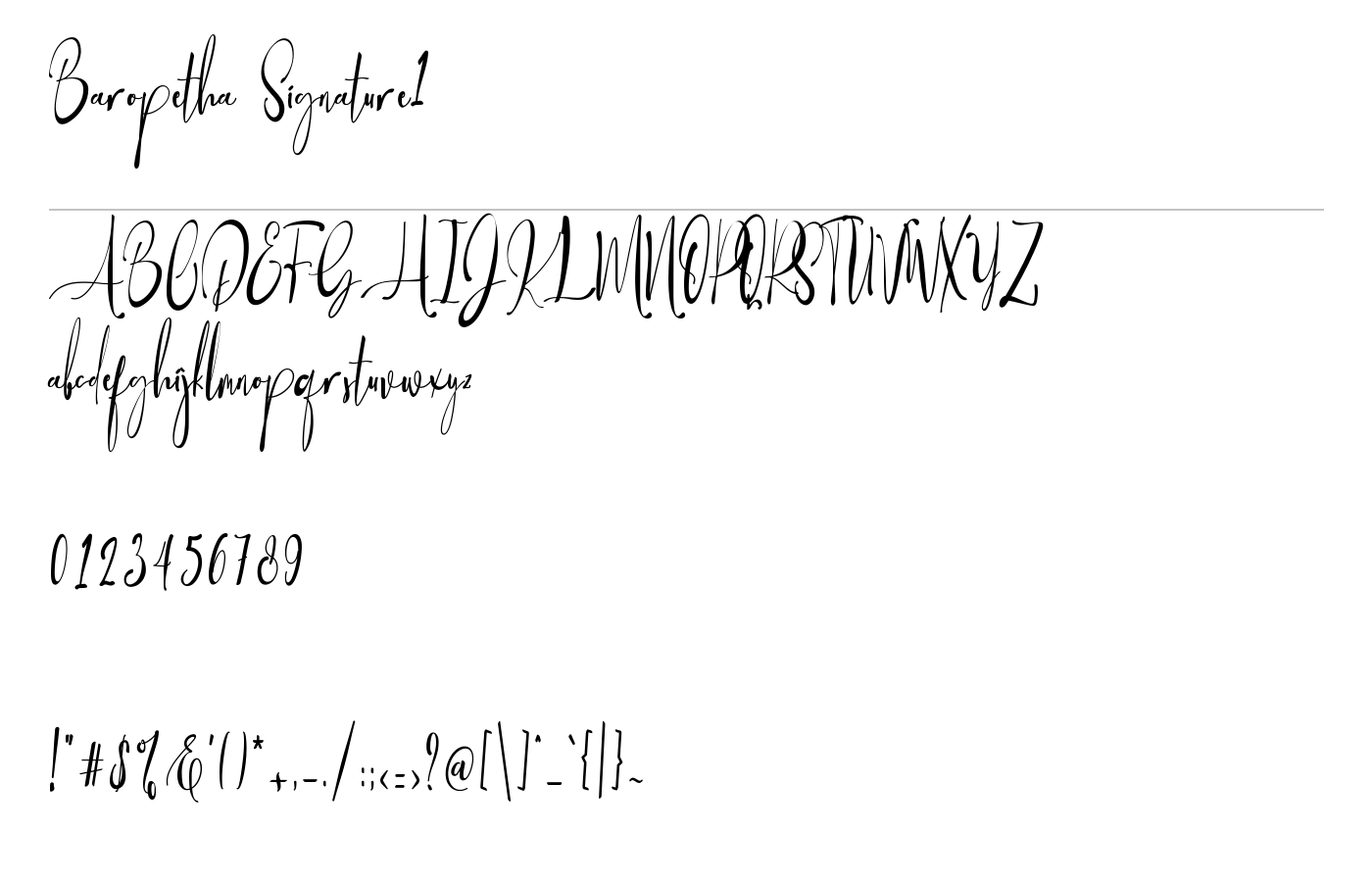
Baropetha Font is an elegant, handwritten script with a tall, narrow structure and fluid, calligraphic strokes that capture the essence of natural handwriting. Its thin and delicate lines give it a sophisticated, luxurious feel, making it perfect for personal branding, fashion, invitations, and stylish logos where a signature-like, refined touch is desired. This font shines best in display uses, adding a graceful, artistic flair to any design that seeks a modern yet intimate personality.
Baropetha Font
About Baropetha Font
| Font family | Baropetha Font |
| Designer | Aldedesign 2019 |